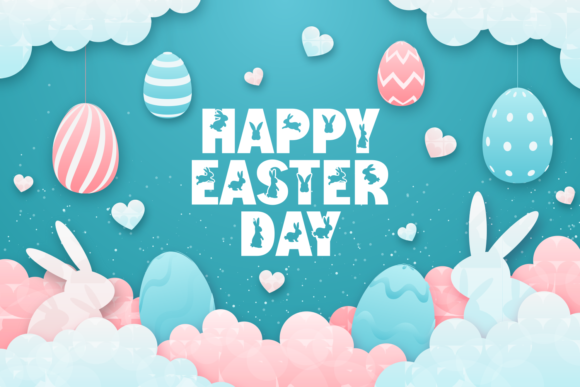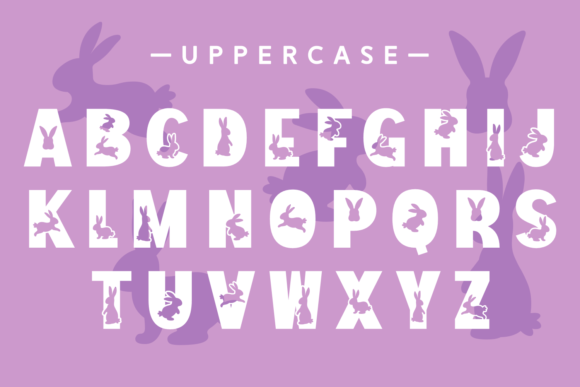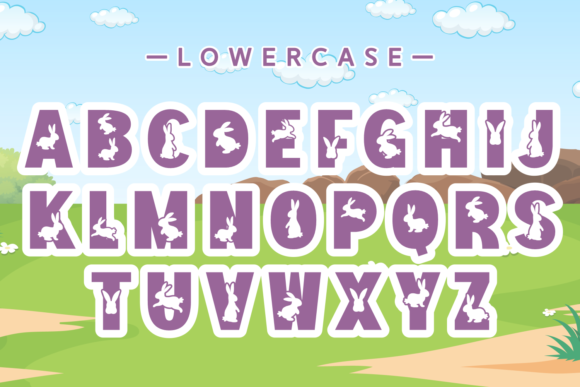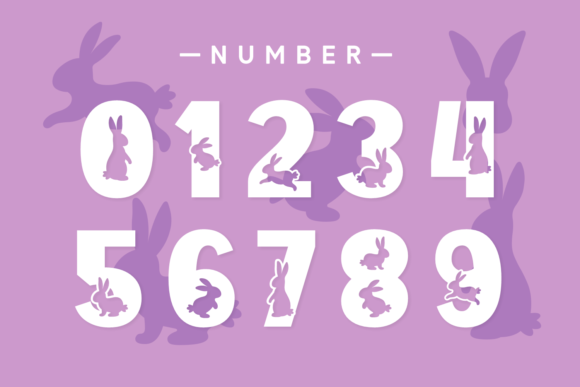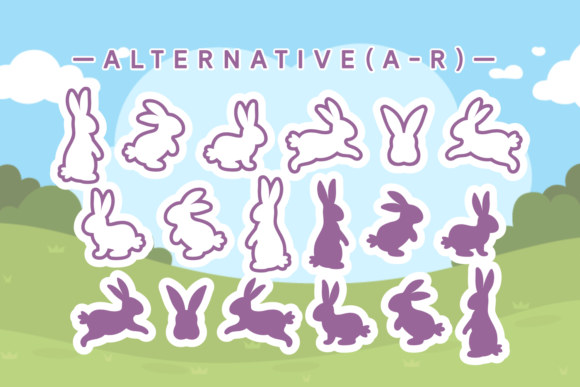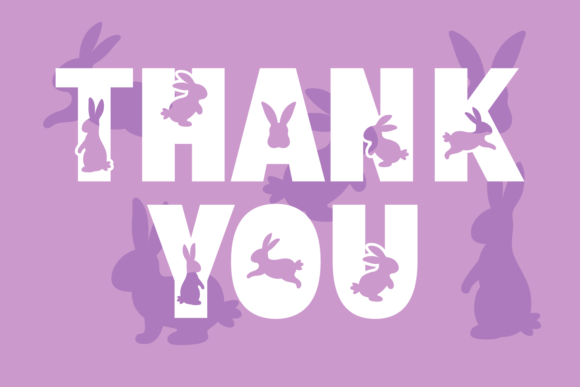
Spring into Creativity with the Bobo Bunny Font
As the Easter season approaches, you find yourself rummaging through your craft supplies, searching for the perfect font to add a touch of whimsy to your handmade cards and decorations. You stumble upon a set of adorable bunny characters, and suddenly, your creative juices start flowing.
This is where the Bobo Bunny Font comes in – a delightful, Easter-inspired font featuring curious little bunnies hopping and running. With its creative set of characters, this font is perfect for adding a playful touch to your Easter cards, quotes, decorations, art prints, t-shirts, and more.
As a designer, you’ll appreciate the versatility and charm of the Bobo Bunny Font, making it a valuable addition to your collection. Whether you’re creating digital art or physical crafts, this font is sure to bring a smile to your face and a touch of springtime magic to your designs.
Bobo Bunny Font Key Features
- Font Family: Bobo Bunny is a unique, hand-drawn font family designed for fun and playful purposes.
- Font Size: Bobo Bunny comes in various font sizes, ranging from 8pt to 72pt, to cater to different design requirements.
- Resolution: The font is designed to work well at high resolutions, making it suitable for use in digital and print media, including social media graphics, posters, and more.
- Unique Characteristics: Bobo Bunny features a distinctive, whimsical style with rounded edges and playful letterforms, perfect for adding a touch of personality to designs.
Designer Review: Bobo Bunny Font
Overall, I have mixed feelings about the Bobo Bunny Font. While it’s a fun, playful font that could be perfect for certain projects, it has its limitations. Let’s start with the good stuff!
- ✨ Unique and whimsical design that could add a touch of personality to any design project.
- ✨ Wide range of characters and glyphs, including punctuation and special characters, making it a great choice for projects that require a lot of text.
- ✨ Good legibility, even at smaller font sizes, making it a good choice for body text.
- ⚠️ The font’s playful design can also make it look unprofessional in certain contexts, such as formal documents or presentations.
- ⚠️ The font’s unique design can also make it difficult to read at very small font sizes, which could be a problem for projects that require a lot of text.
- ⚠️ Limited support for languages other than English, which could be a problem for projects that require multilingual support.
Overall, I think the Bobo Bunny Font is a great choice for projects that require a playful, whimsical touch, but it may not be the best choice for more formal or professional projects.
Tips for Getting the Most Out of Bobo Bunny Font
For best results, use Bobo Bunny Font for titles, headings, and emphasis. Avoid using it for large blocks of text, as it can be difficult to read. Experiment with different font sizes and styles to achieve a balanced design.
Bobo Bunny Font is ideal for:
– Children’s book illustrations
– Cartoon-style graphics
– Whimsical branding and marketing materials
– Fun and playful social media posts